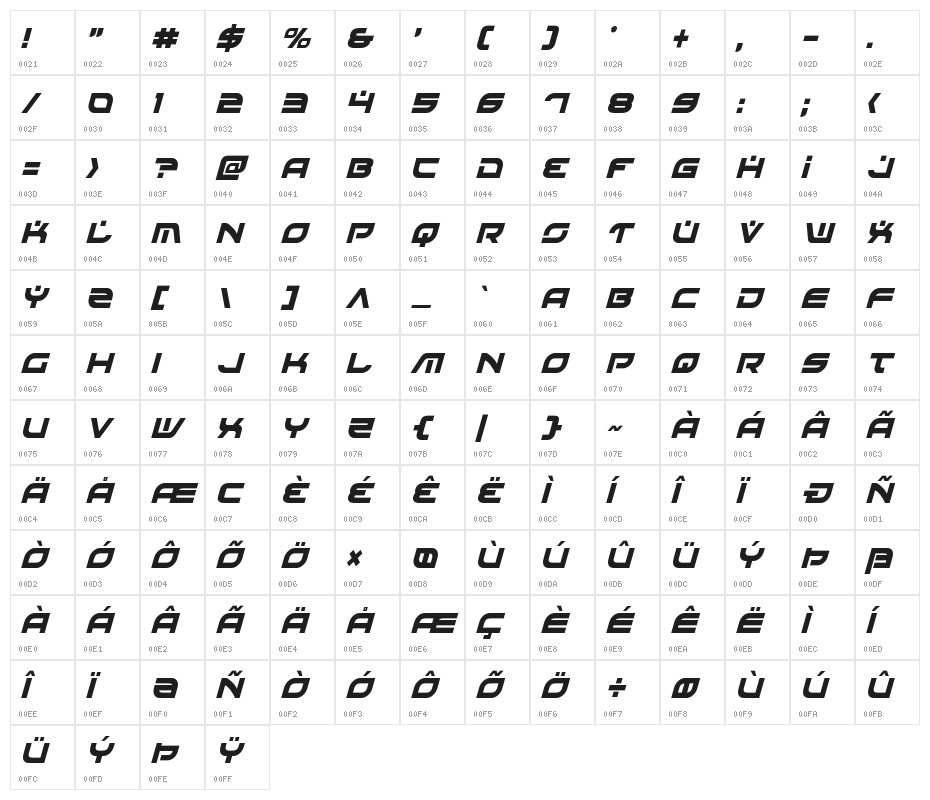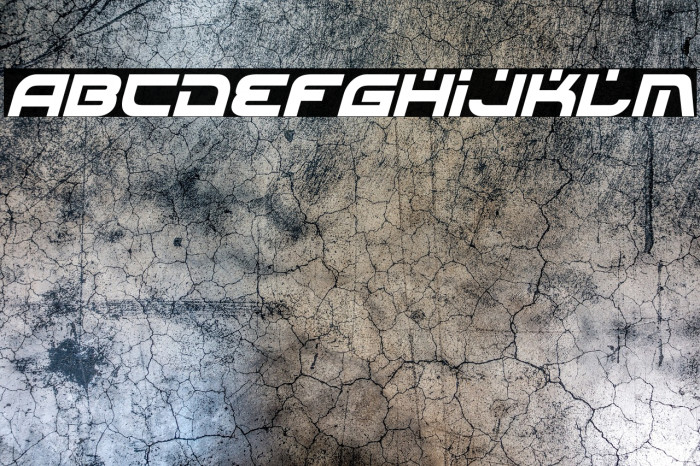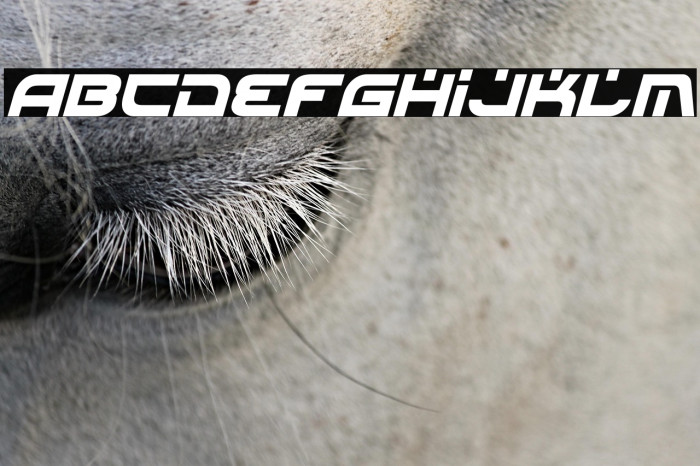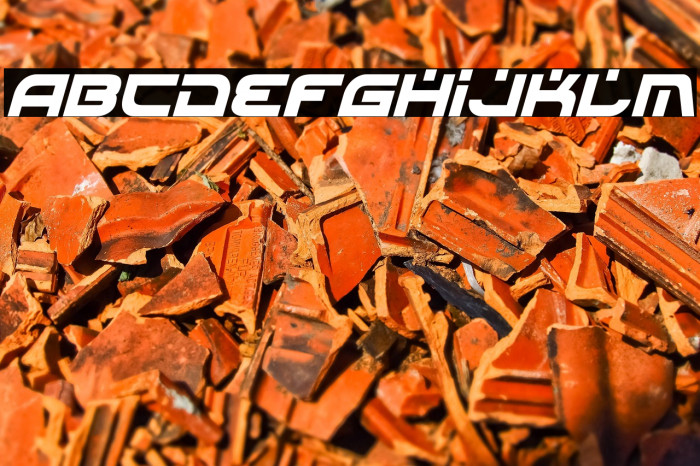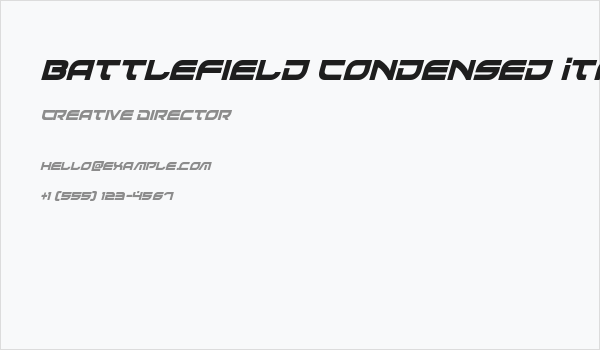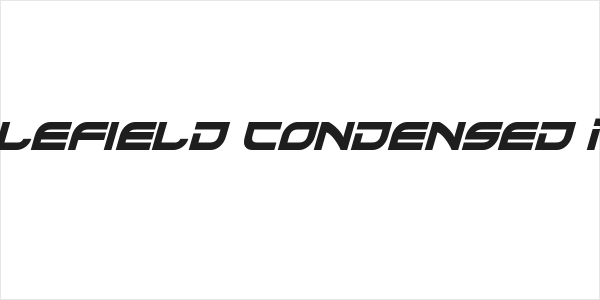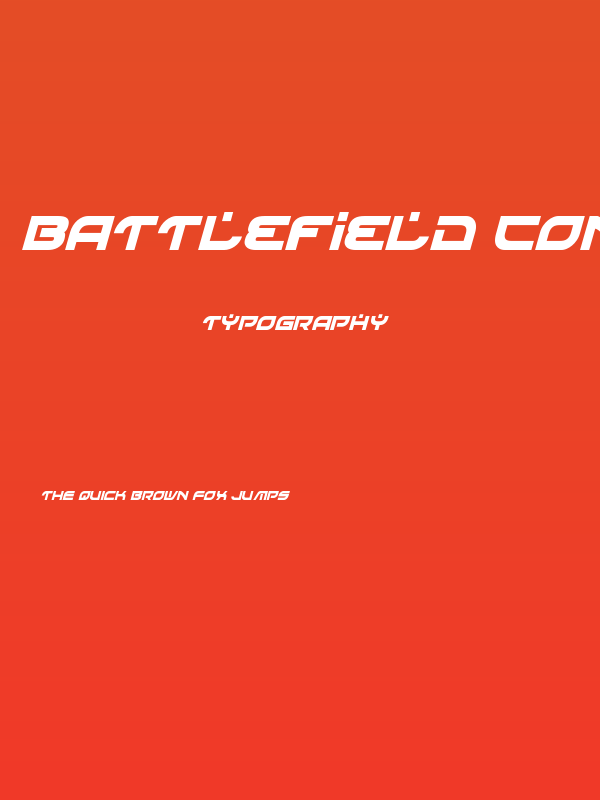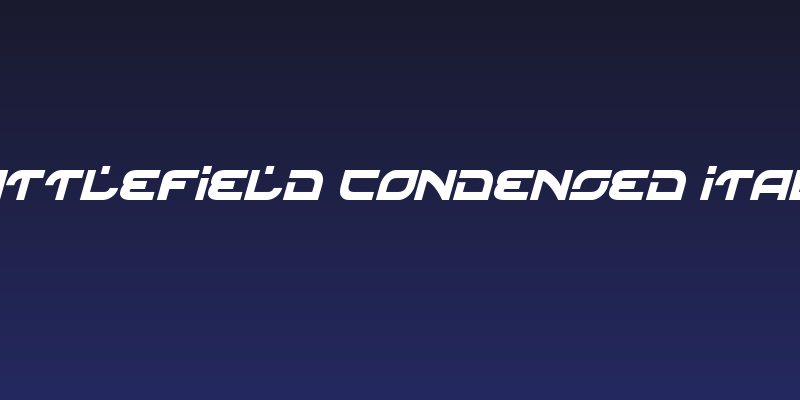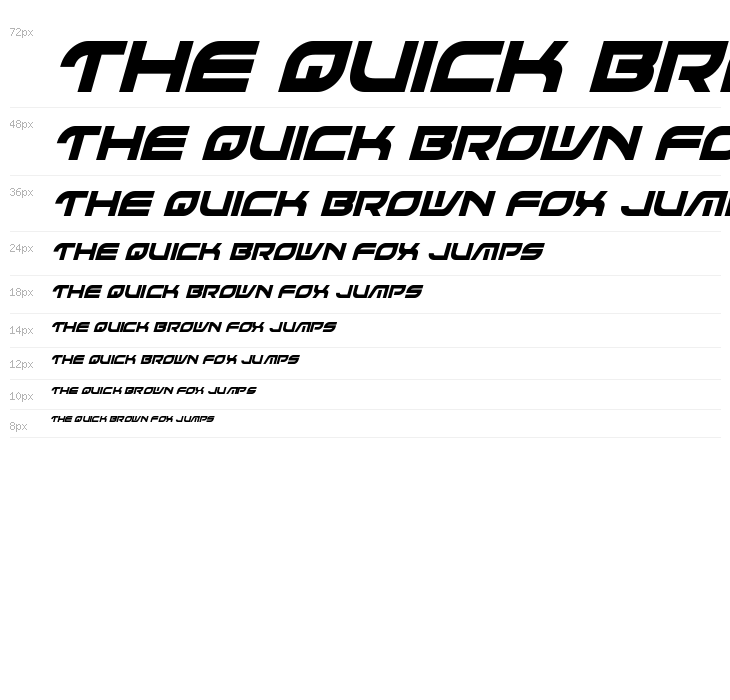
Battlefield Condensed Italic Font
Battlefield Condensed Italic Description
This font features a dynamic and modern design with a condensed and italicized style. The characters are bold and angular, giving a sense of speed and movement. The uppercase and lowercase letters maintain a consistent slant, enhancing the italic effect. The numbers and special characters follow the same design principles, ensuring uniformity across all glyphs. The overall appearance is sleek and futuristic, making it suitable for projects that require a strong visual impact.
| Proposed Projects | Ideal for use in video game titles, sports branding, automotive advertisements, and technology-related projects. |